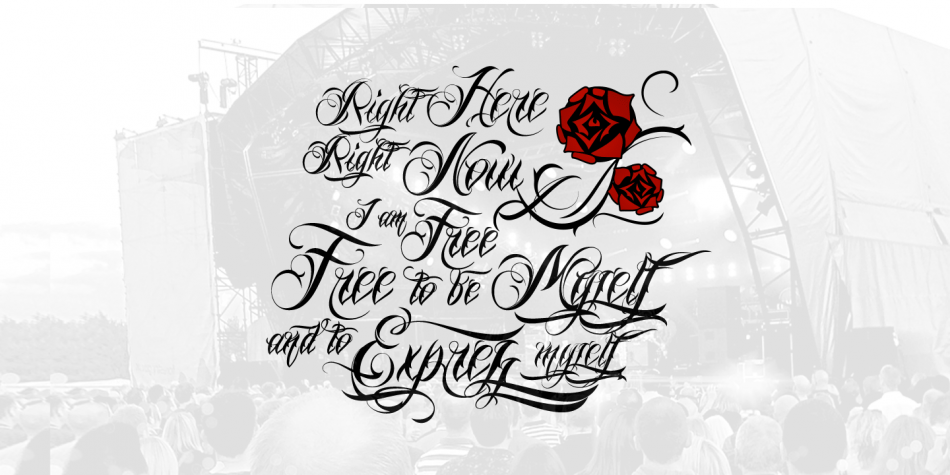
Nino Script is a script font published by Måns Grebäck.
Nino Script is a decorative tattoo typeface. It has a wild style and ornamental letters that gives a customized appearance to every word.
Use underscore to create a swash. Example: Wild_